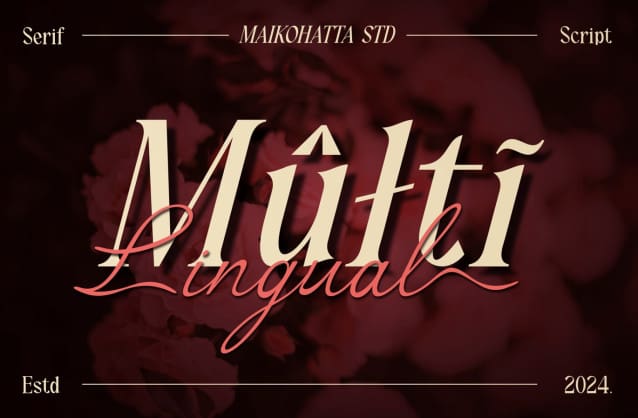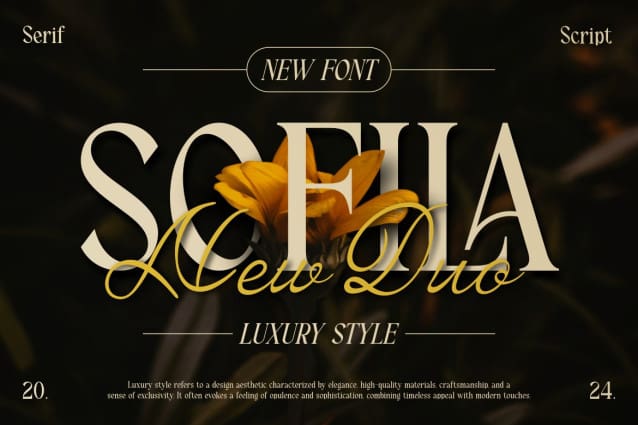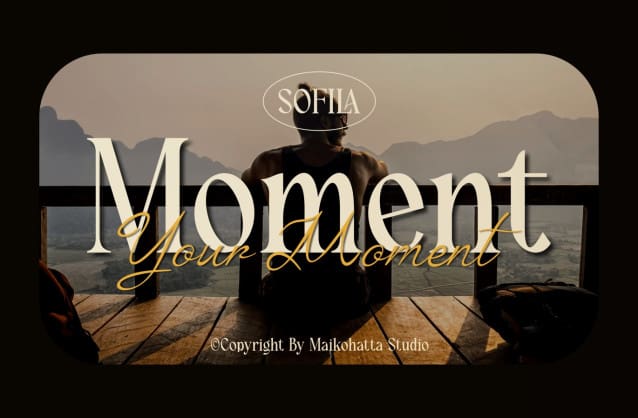
Sofila Font Duo
Sofila Font Duo, this font is a type of letter that has special characteristics that create an impression of luxury, elegance, and firmness. This font includes a series of design elements such as balanced thin and thick lines, soft curves, and elegant and clean serifs. The sharp angles and fine details of each character create a highly aesthetic impression and give off an air of elegance.